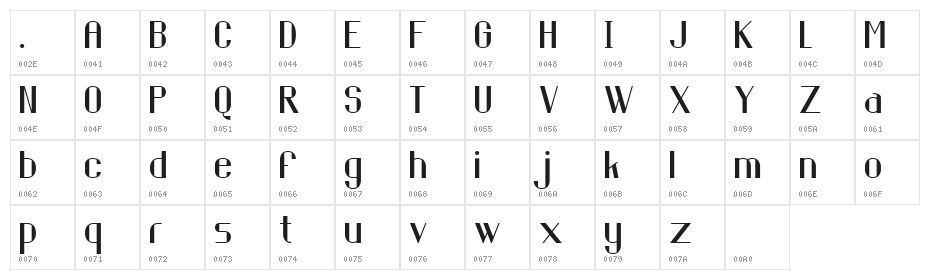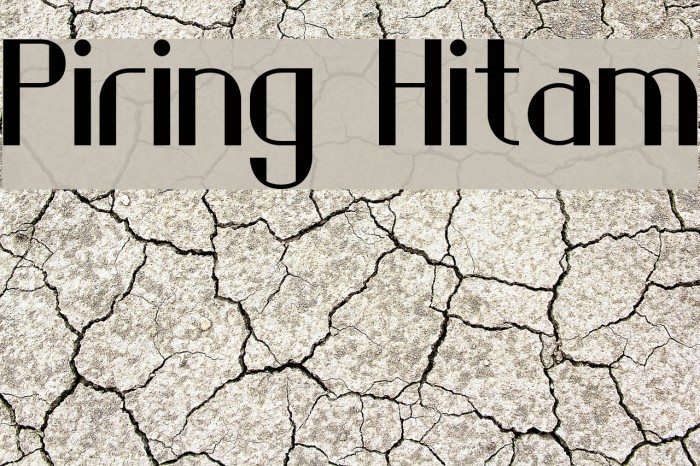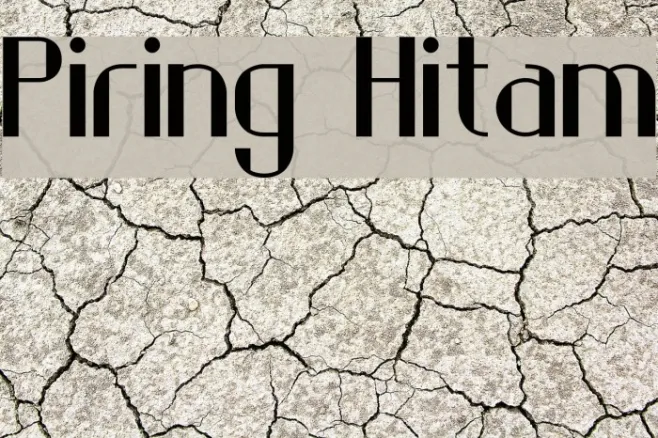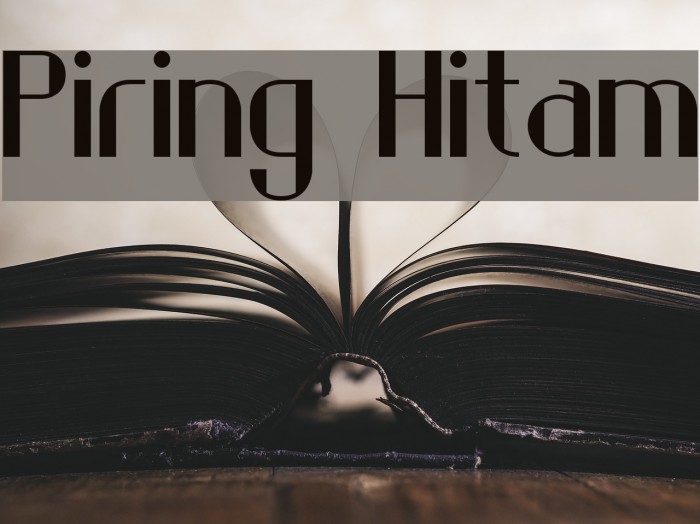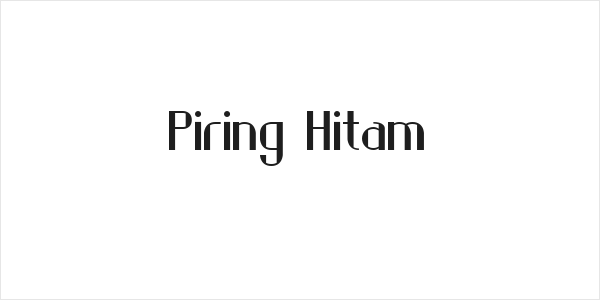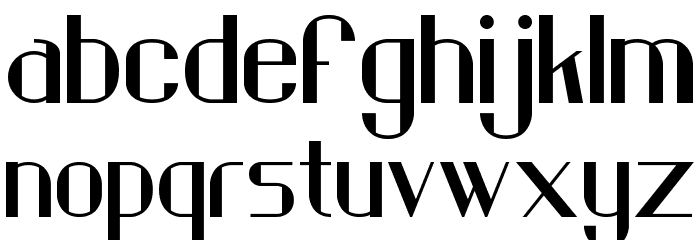
Piring Hitam Font
Piring Hitam Description
This font features a modern and sleek design with a geometric influence. The uppercase letters are bold and structured, with a unique blend of sharp angles and smooth curves that give it a distinctive appearance. The lowercase letters maintain a consistent style, offering a harmonious balance between readability and aesthetic appeal. The numbers and special characters are crafted with the same attention to detail, ensuring uniformity across all glyphs. This font's design is both contemporary and versatile, making it suitable for a wide range of creative projects.
| Proposed Projects | Ideal for branding, advertising, posters, and digital media projects. |